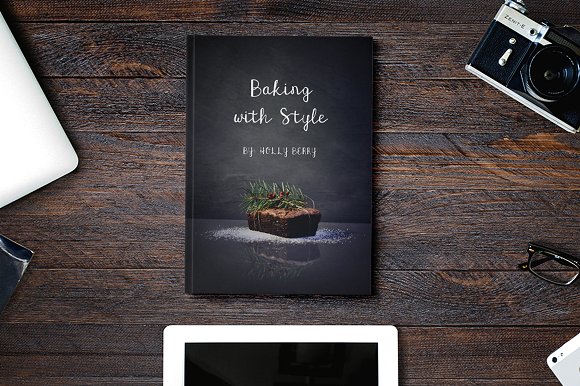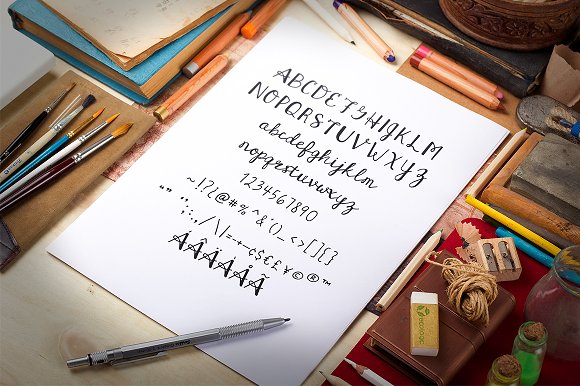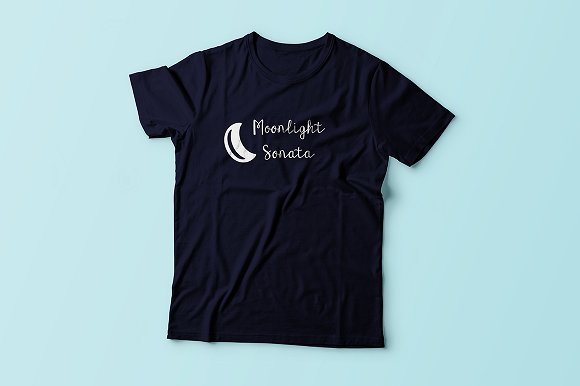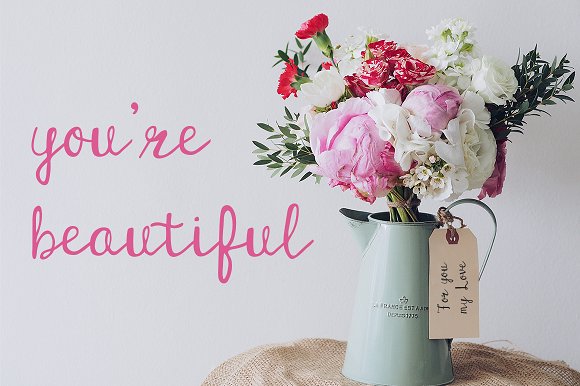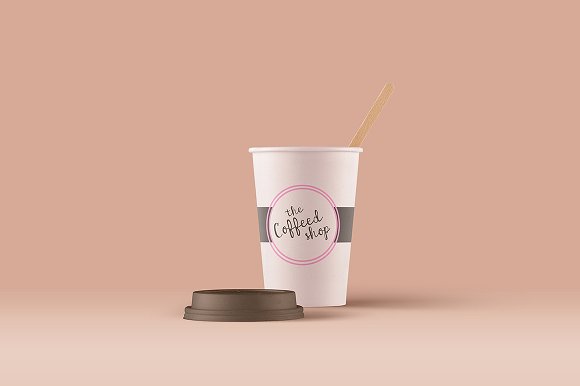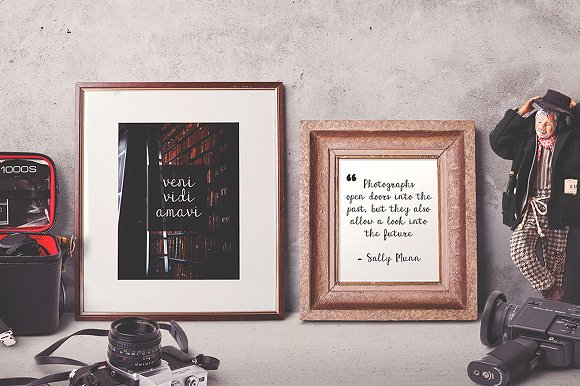
Amavi Font
Amavi is a fun handwritten font with loopy details. It is perfect to frame quotes, magazines, books, apparel, letterheads, labels, signs, invitations. posters, etc. It also has Multilingual support for all Western European languages.